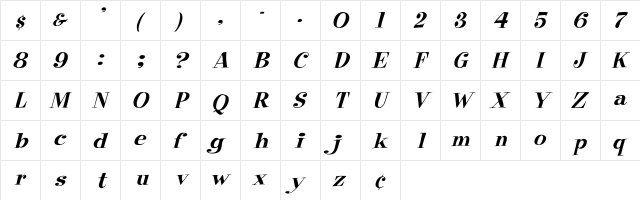
PixieFont Italic Italic
Design Context for PixieFont Italic Typeface
PixieFont Italic offers clean, dependable letterforms without strong stylistic allegiance, making it a practical choice for designers who need flexibility. The slanted form adds forward momentum and visual energy.